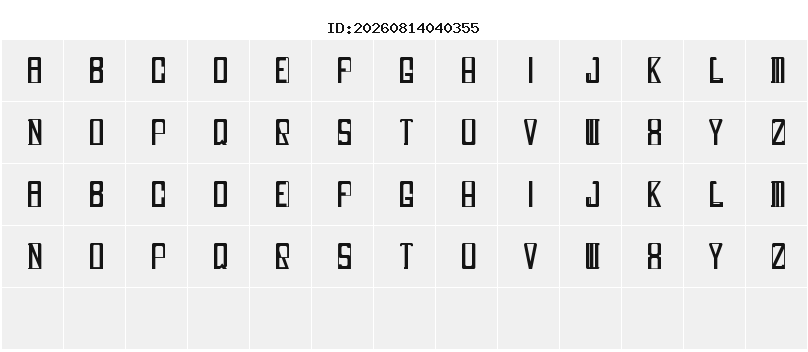
• Font Name: Sweepin It Up
• Manufacturer: Ryan Palm
Sweepin It Up.ttf is a modern, elegant sans-serif font designed for ultimate readability and visual harmony. Perfect for branding, headlines, web design, and print materials.